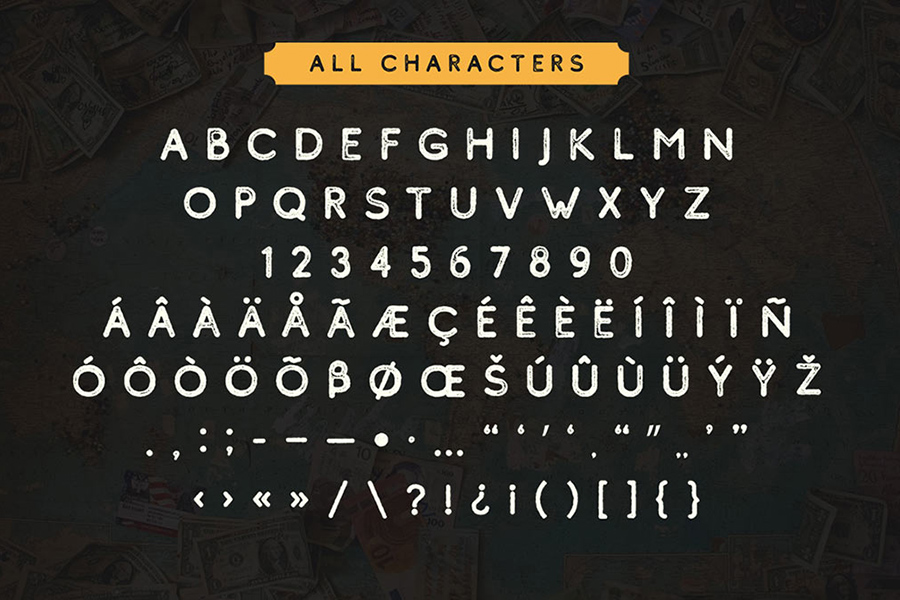
Comodo – Free Sans Serif Font
Comodo font family includes 4 font styles. It can be used to create almost all types of design projects like print materials, to begin with! Just use your imagination and some graphic design set in Extras, your project will become more alive and look more impressive. There’s a bouquet of possibilities with included illustrations! You can make a greeting card or a package design, brand identity, any DIY project, book title, pop vintage design, or any other pretty and trendy thing. The free sans-serif font is created by Craft Supply Co. and can be downloaded for free.